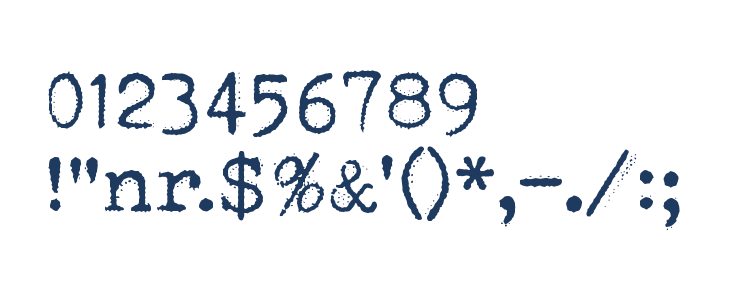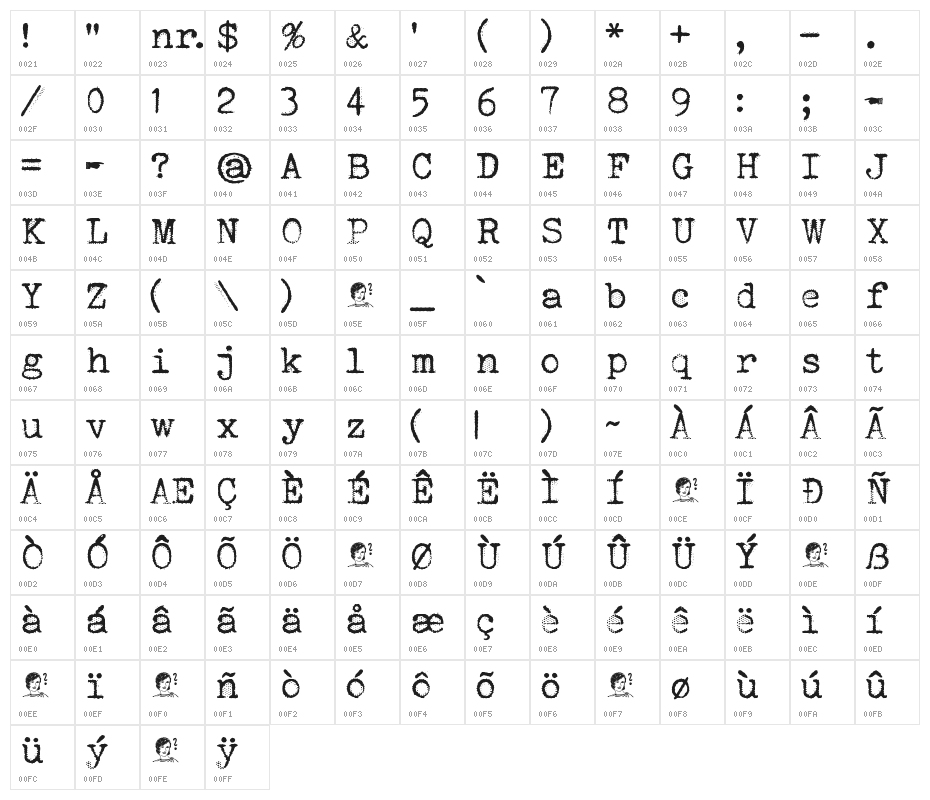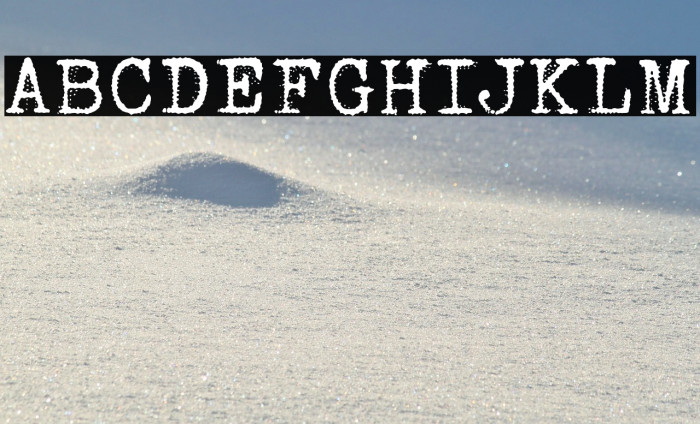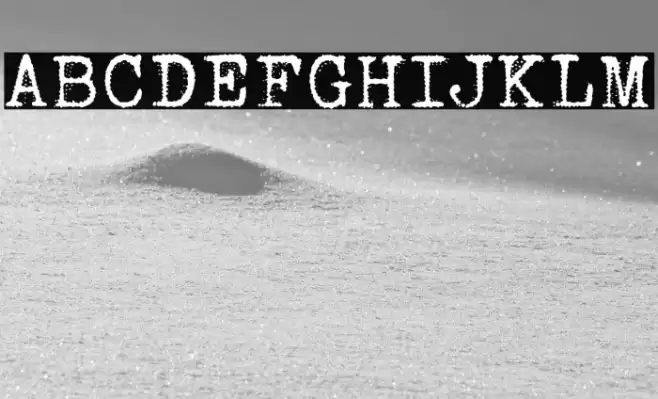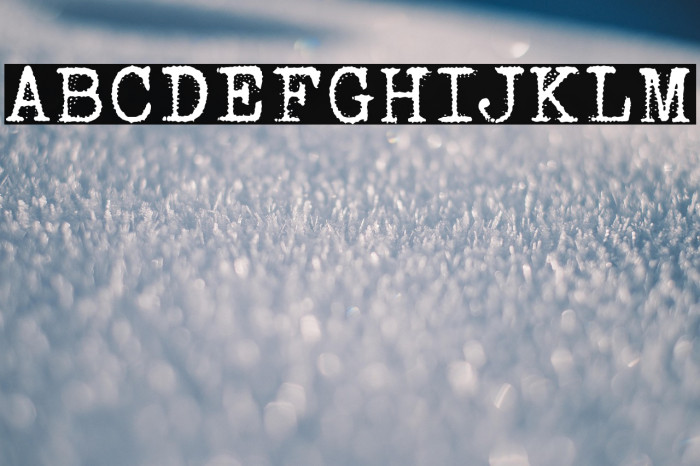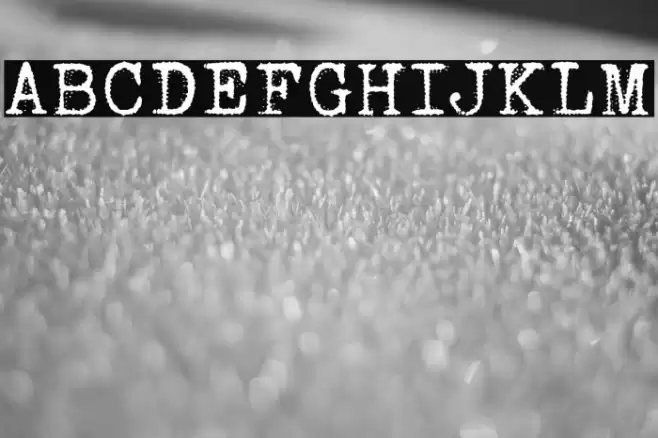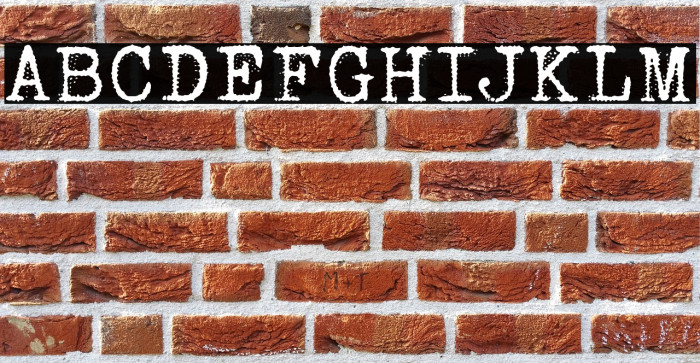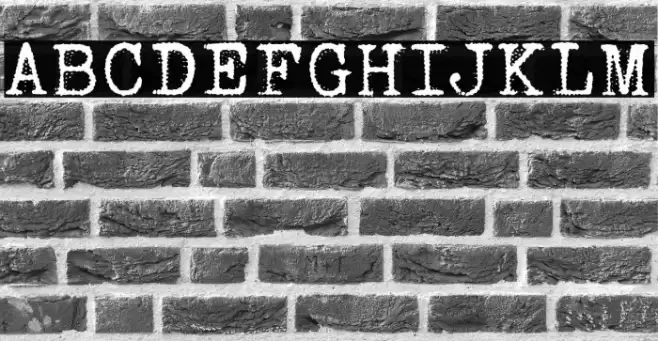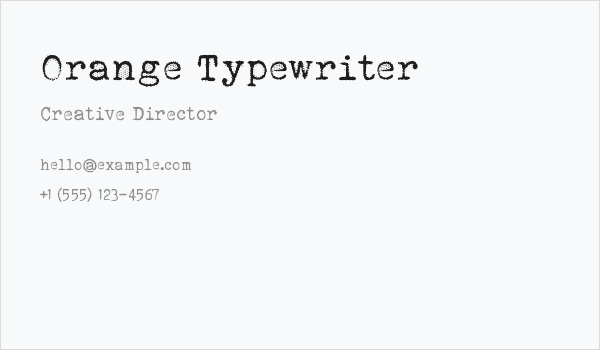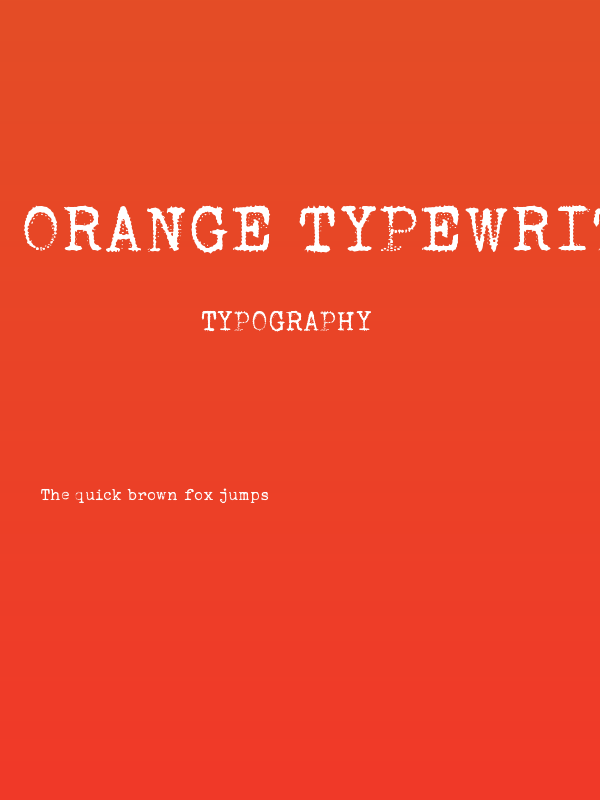
Orange Typewriter Font
Orange Typewriter Description
This typewriter-style font exudes a vintage charm with its distinct, slightly irregular letterforms that mimic the look of old mechanical typewriters. Each character is marked by a textured, distressed appearance, giving it a worn, authentic feel. The uppercase and lowercase letters maintain a consistent style, with rounded edges and a uniform baseline, while the numerals and special characters complement the overall aesthetic. The font's unique texture and classic typewriter design make it ideal for projects that require a retro or nostalgic touch.